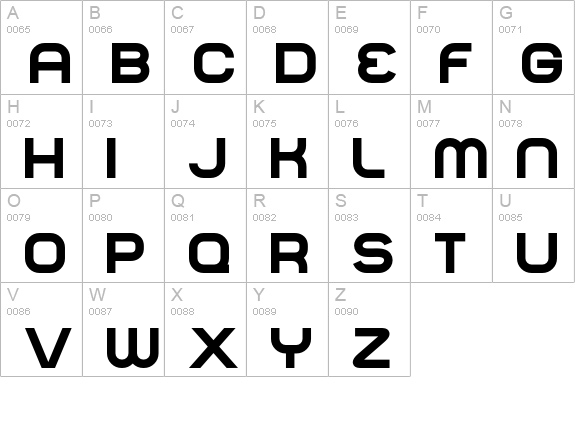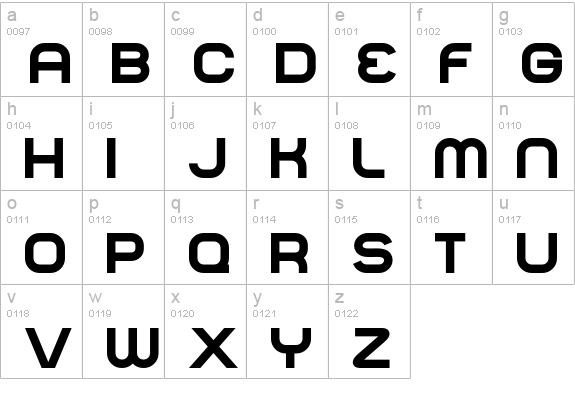
NORMAL Font Details
NORMAL is the standard, neutral variant in the NORMAL typeface family \xE2\x80\x94 well suited to general body text, paragraphs, and standard typographic work.
The NORMAL font is a versatile and classic typeface that is perfect for a wide range of design projects. With its clean lines and balanced proportions, this font exudes simplicity and elegance. Its neutral and timeless design makes it suitable for both formal and informal settings, making it a go-to choice for many designers. One of the best things about the NORMAL font is that it is freely available to download at FontsMarket.com. This means that you can easily access and use this font for all your creative endeavors without any cost. Whether you're working on a personal project or a professional assignment, this font will enhance your designs and give them a polished and professional look. With its extensive character set and various weights, the NORMAL font offers ample flexibility to cater to your specific design needs. Whether you're creating a logo, designing a website, or crafting a brochure, this font will provide you with the tools to express your creativity and convey your message effectively. The simplicity of the NORMAL font does not compromise its legibility. The clean and clear letterforms ensure that your text is easy to read, whether it's displayed on a screen or printed on paper. This font's versatility also extends to its compatibility with different devices and software, ensuring a seamless user experience across various platforms. In addition to its aesthetic and functional qualities, the NORMAL font is also known for its ease of use. Its straightforward design and intuitive spacing make it a breeze to work with, even for those who are new to graphic design. With this font, you can effortlessly create professional-looking designs that will captivate your audience. In conclusion, the NORMAL font is a timeless and versatile typeface that is freely available to download at FontsMarket.com. Its clean lines, balanced proportions, and wide range of weights make it suitable for various design projects. Whether you're a seasoned designer or just starting out, this font will elevate your designs and help you achieve your creative vision.